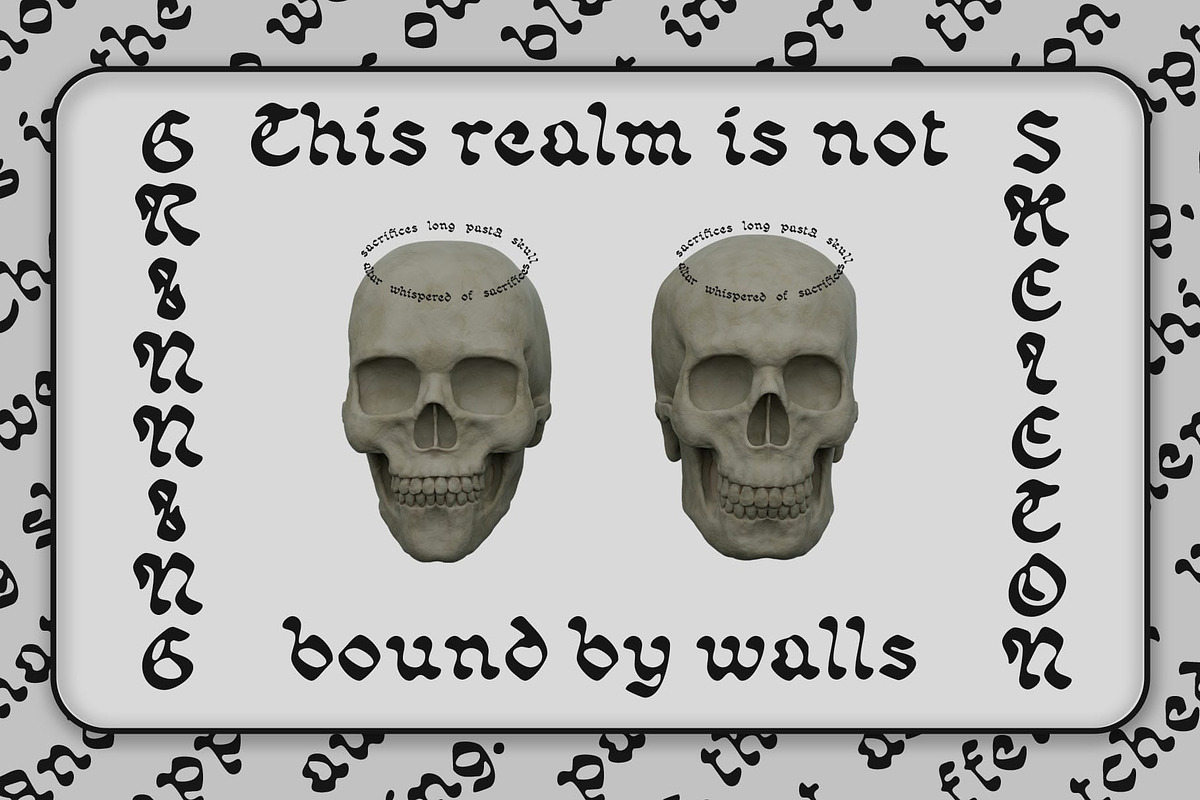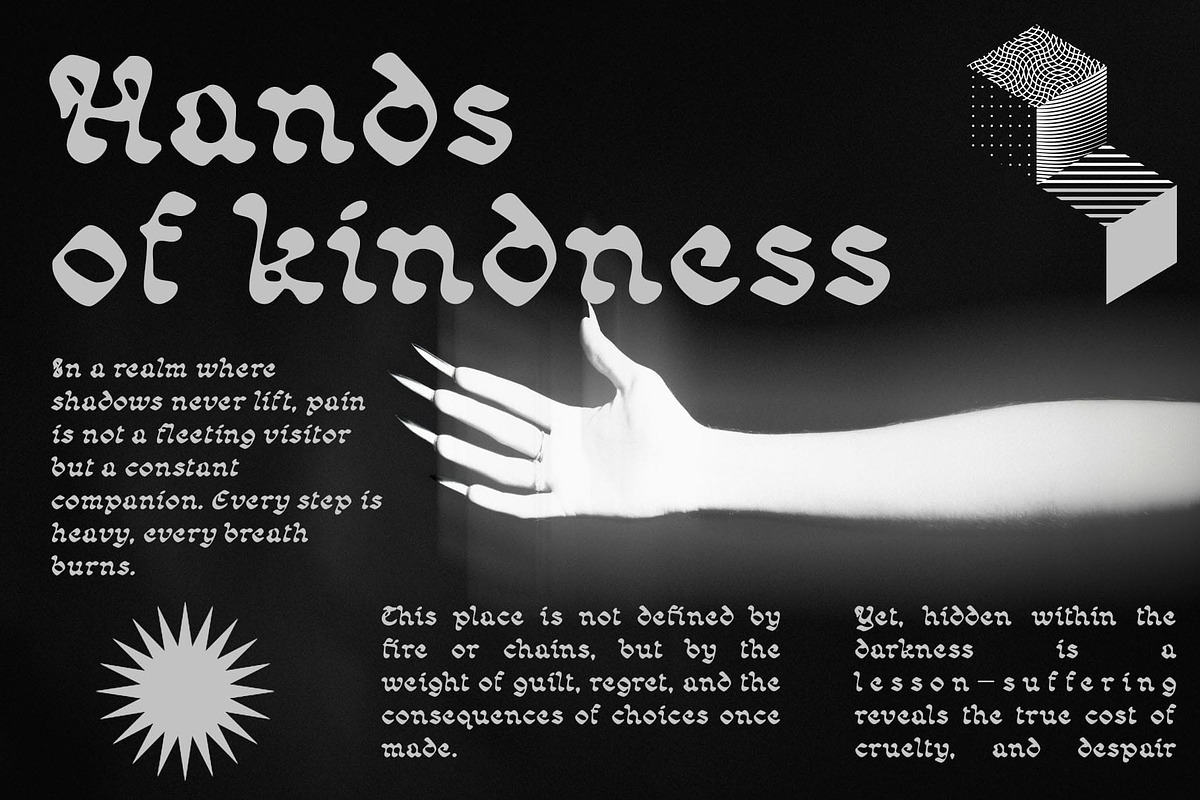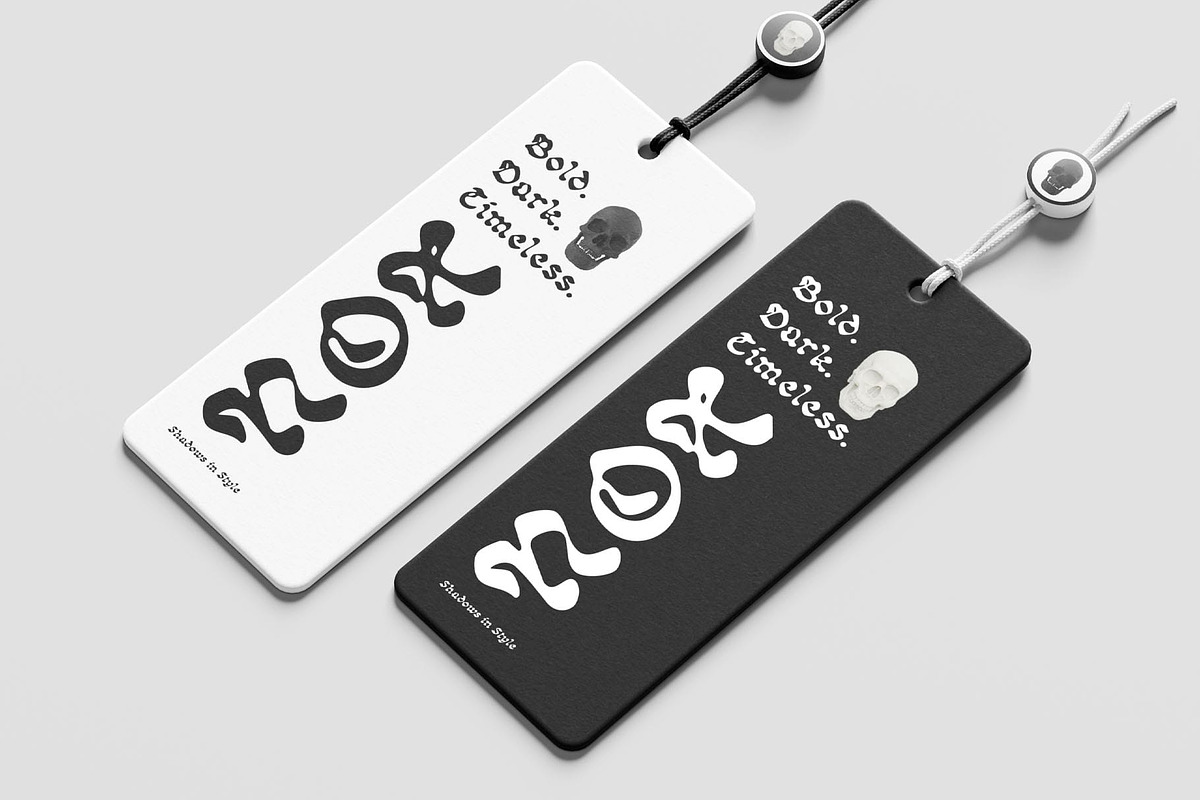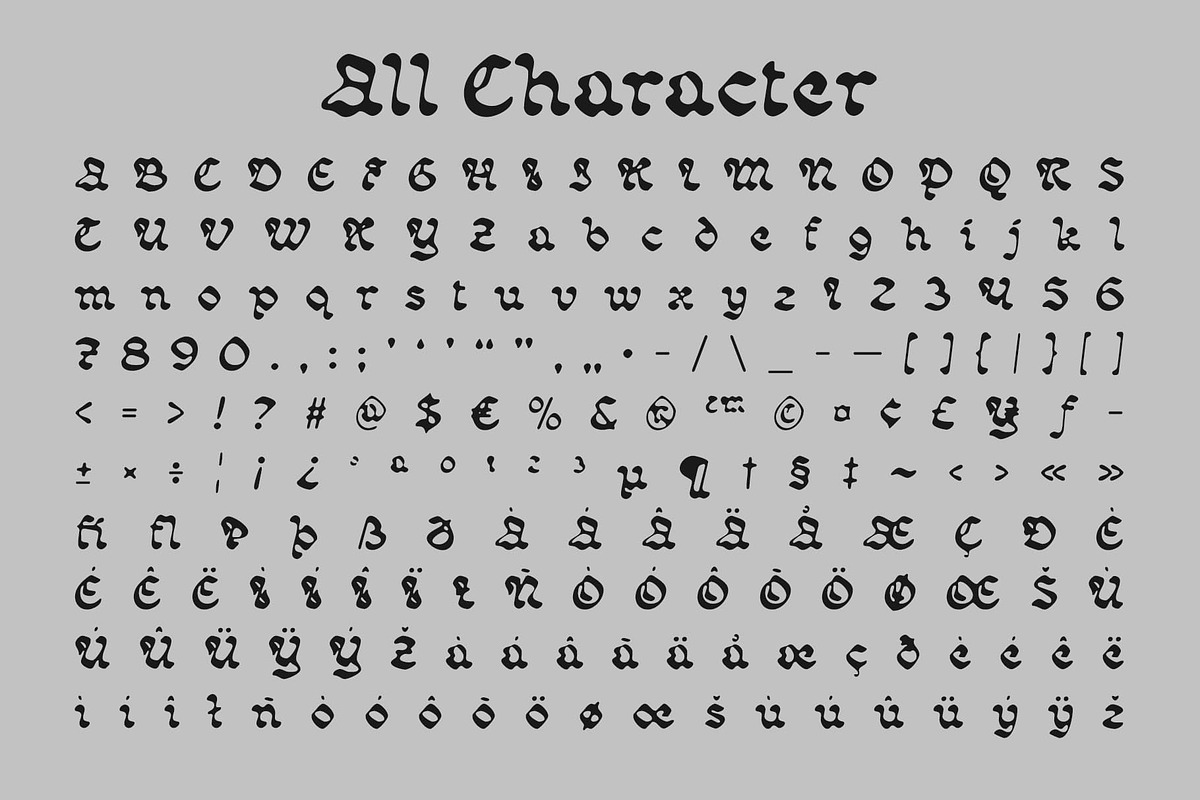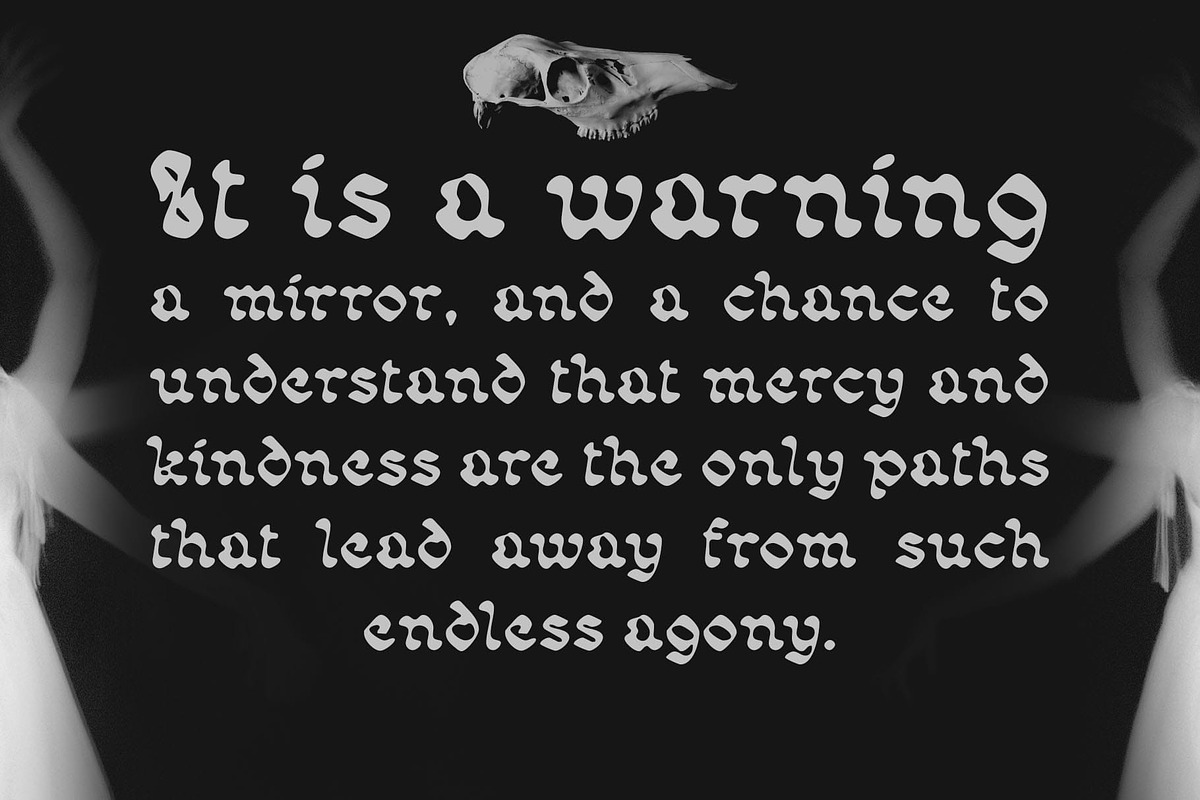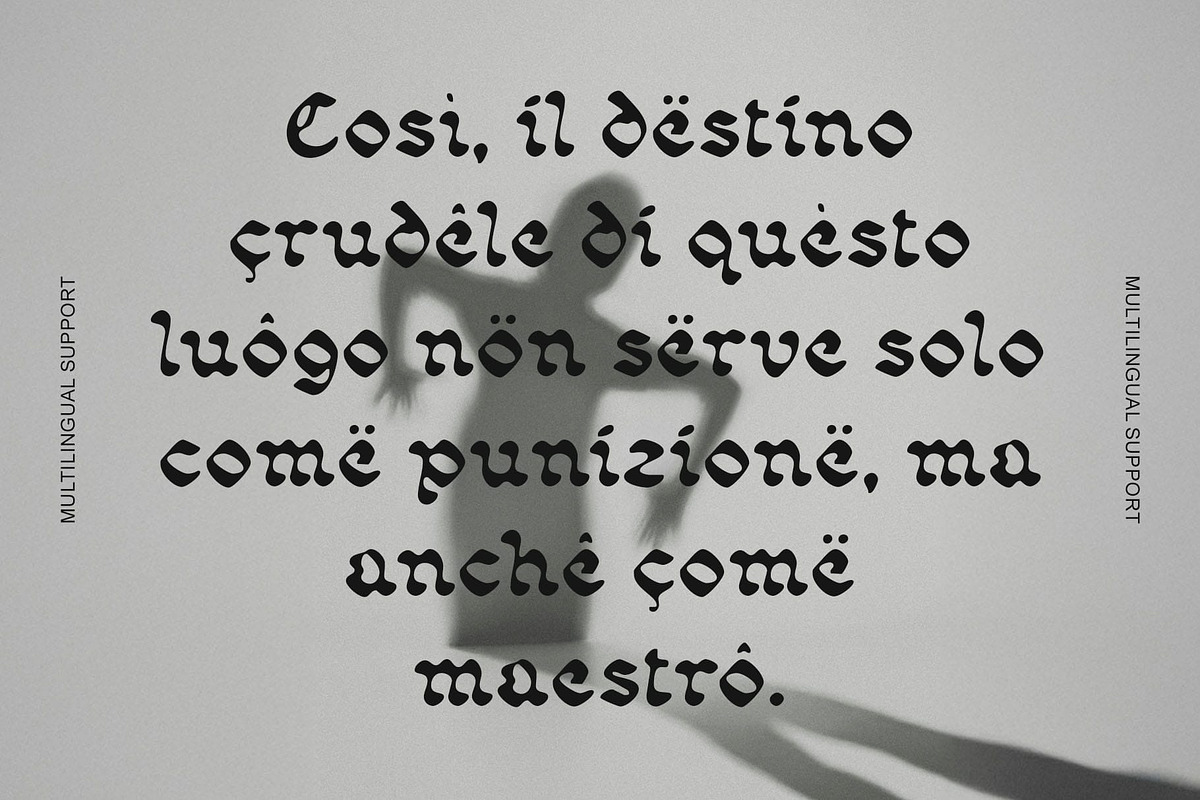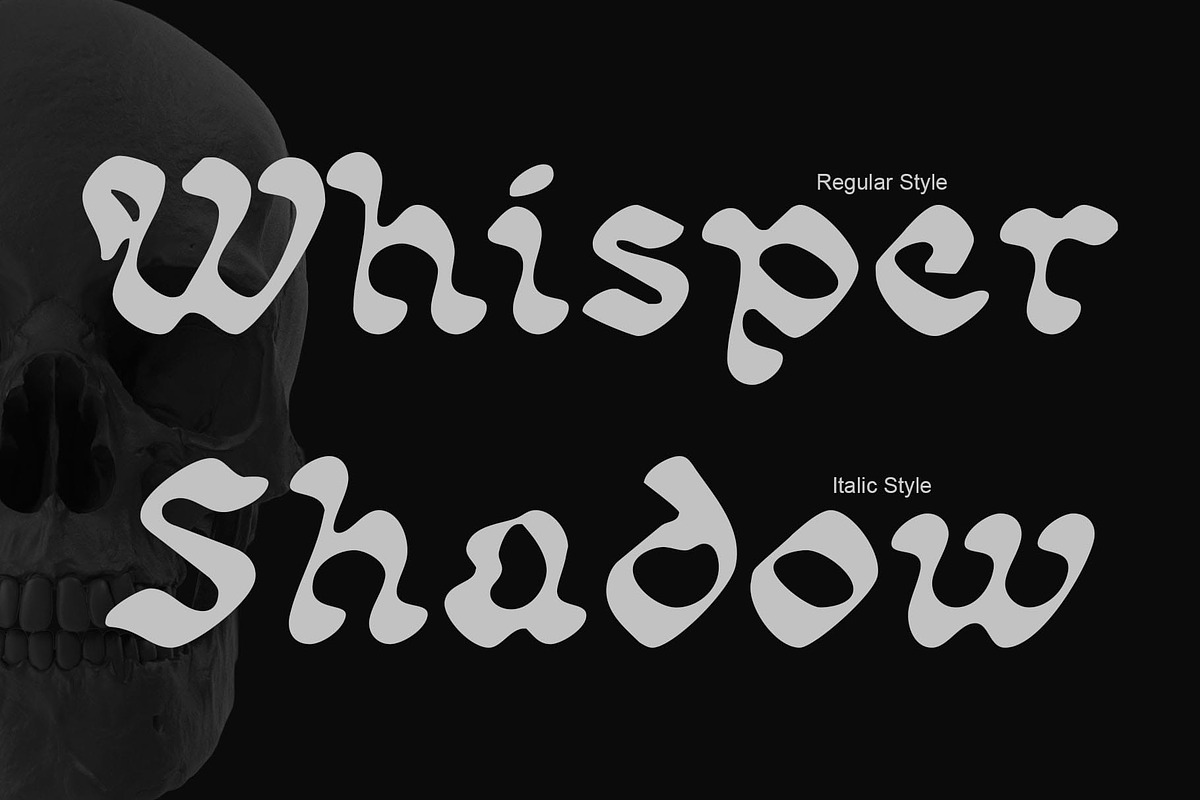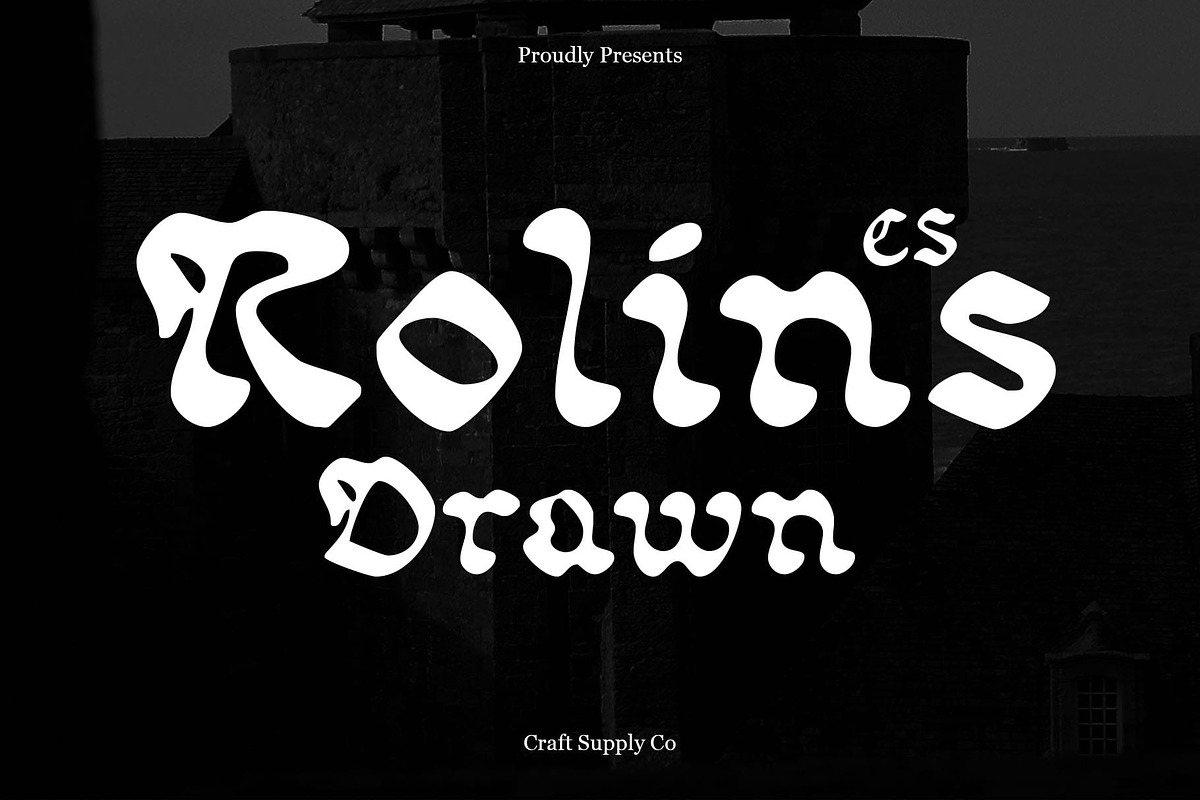
CS Rolins Drawn
CS Rolins Drawn – Decorative Blackletter with Drawn Style: Gothic Strength with Handcrafted Character
Bold Blackletter with a Mystical Edge This is a decorative Blackletter font defined by bold, dramatic strokes and intricate forms. Rooted in Gothic tradition, it carries an air of mystery and strength, giving any design an imposing and captivating presence.
Hand-Drawn Style for Natural Expression What makes this font unique is its hand-drawn texture. The natural ink-like strokes add a human touch, softening the rigidity of classic Blackletter and infusing the font with artisanal charm. This handcrafted detail enhances its personality, making it stand out in creative and expressive projects.
Ideal for Posters, Branding, and Party Designs Whether used for bold party visuals, striking posters, or edgy branding, this font brings a balance of tradition and creativity. Its dramatic shapes ensure impact, while the drawn detailing adds warmth and originality to the design.
Classic Tradition with Distinctive Appeal By merging historic Blackletter aesthetics with a drawn, handmade finish, bridges the gap between past and present. The result is a font that feels both timeless and distinctive, offering designers a tool that elevates projects with character and flair.
- CS Rolins Drawn Regular
- CS Rolins Drawn Italic